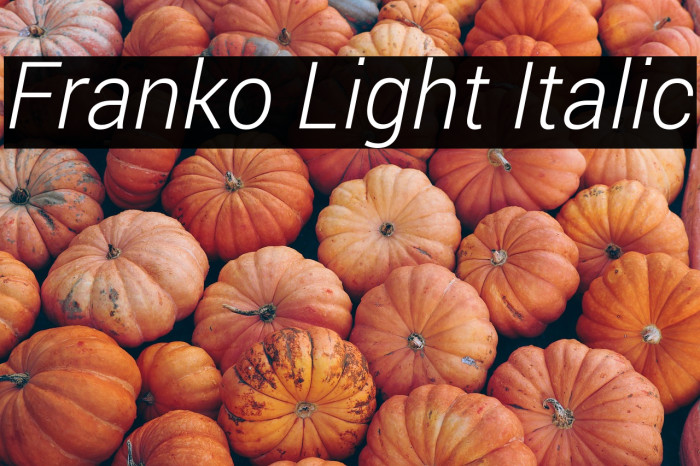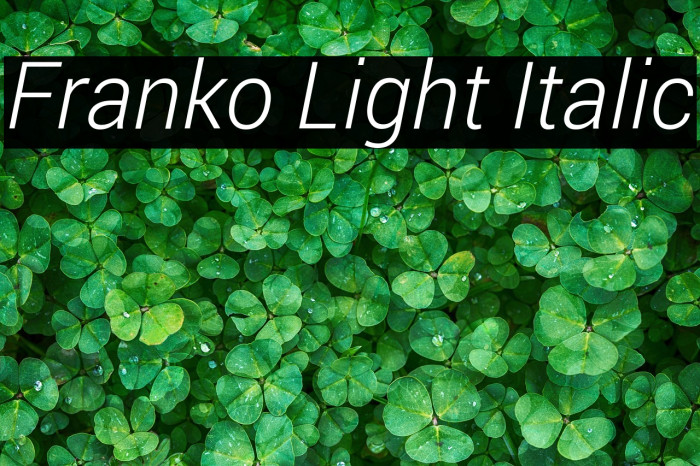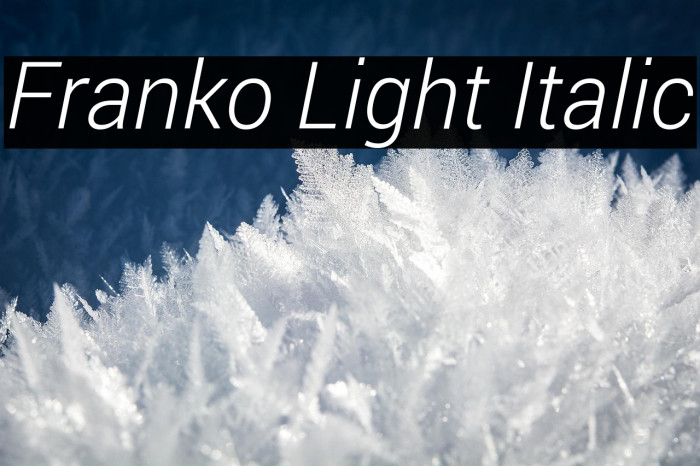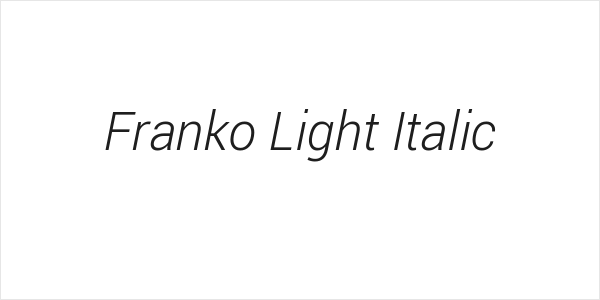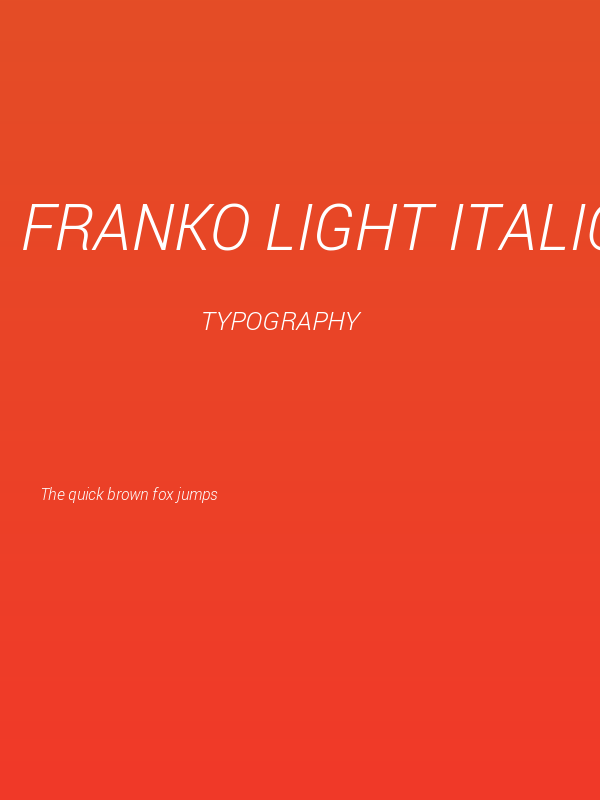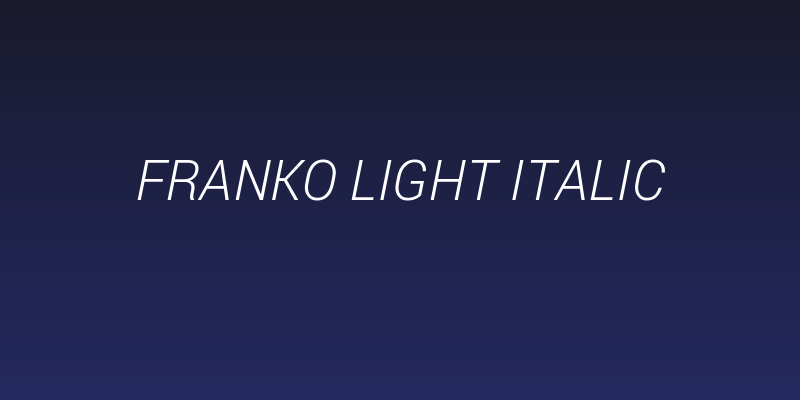
Franko Light Italic Font
Franko Light Italic Description
This font exhibits a sleek and modern design with a light weight and italic style. The characters are elegantly slanted, providing a sense of motion and fluidity. The sans-serif nature of the font ensures clean lines and a minimalist aesthetic, making it versatile for various applications. The uppercase and lowercase letters maintain a consistent style, with smooth curves and a uniform stroke width. Numbers and special characters are designed to complement the overall look, ensuring readability and visual harmony.
Proposed ProjectsIdeal for modern branding, fashion magazines, elegant invitations, and minimalist web design.